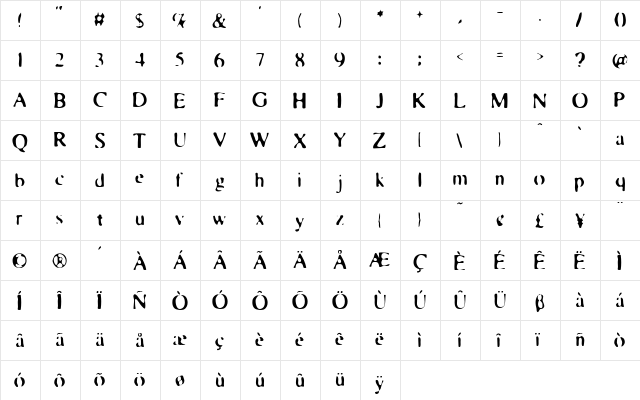
Blearex Medium Font Preview
Blearex Medium
Design Context for Blearex Typeface
Blearex takes a measured approach to typography — its balanced proportions and neutral character make it a reliable workhorse for both digital and print work.